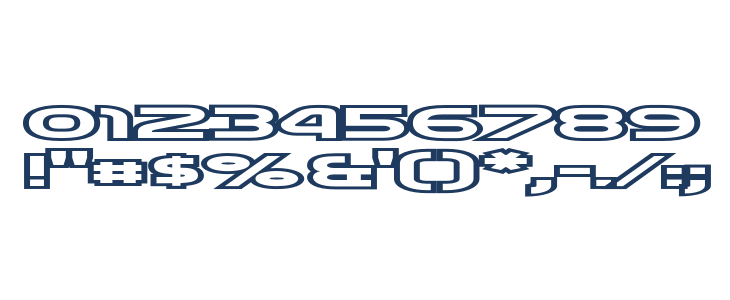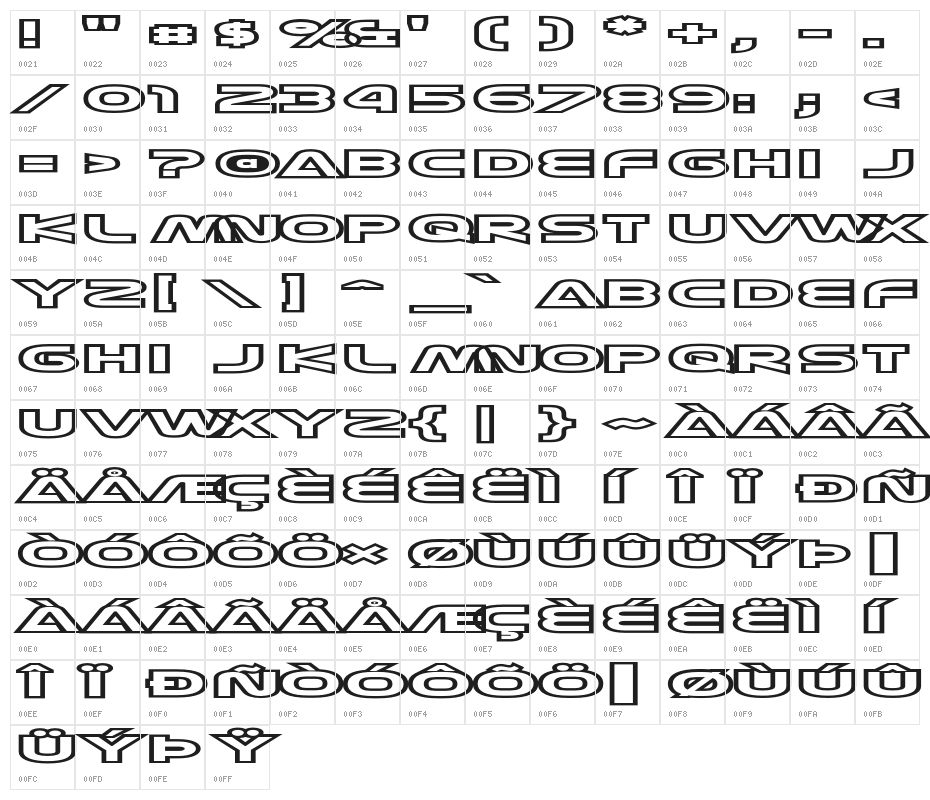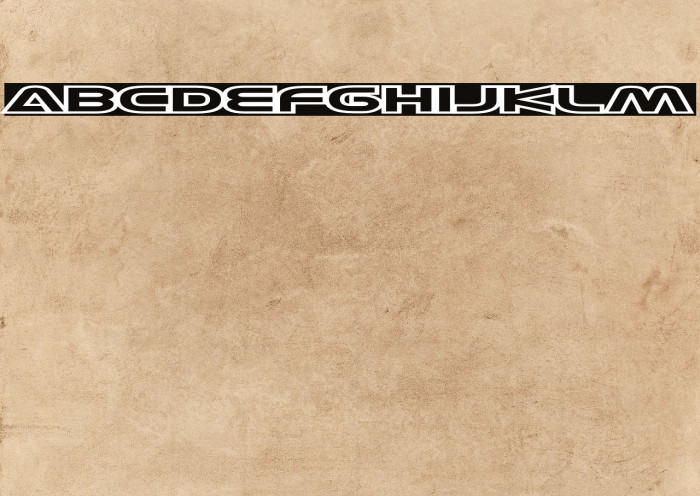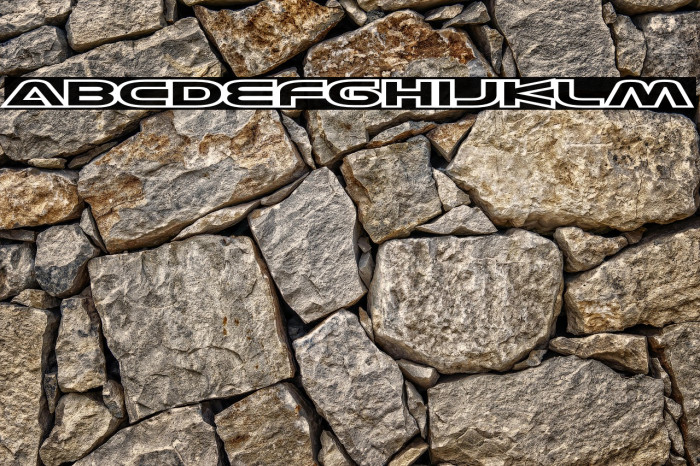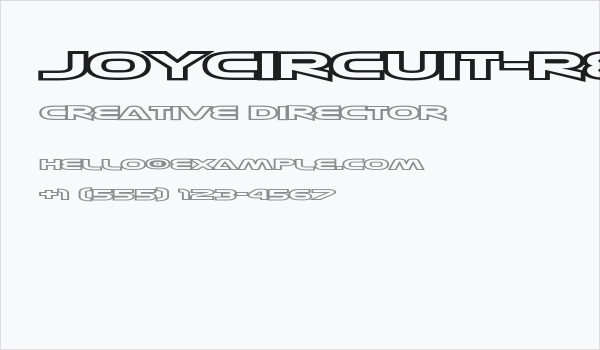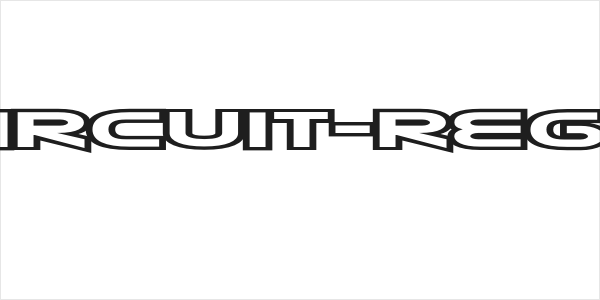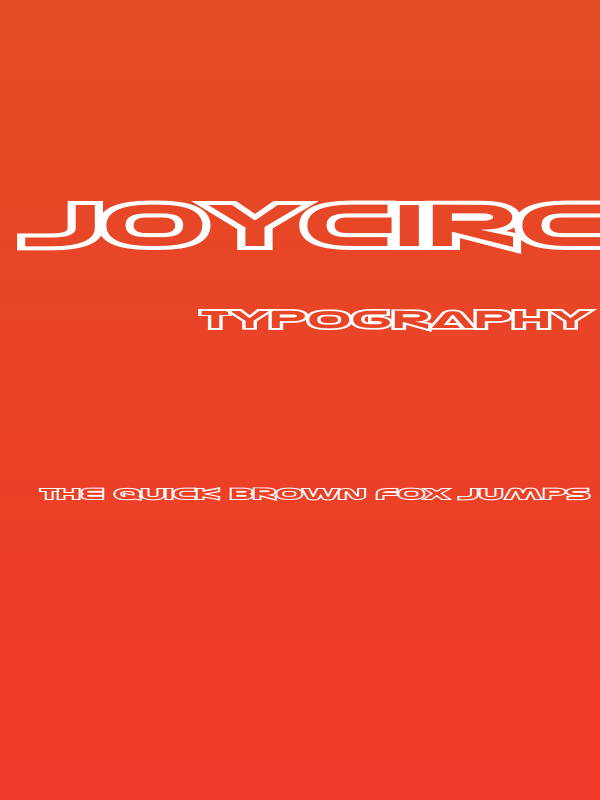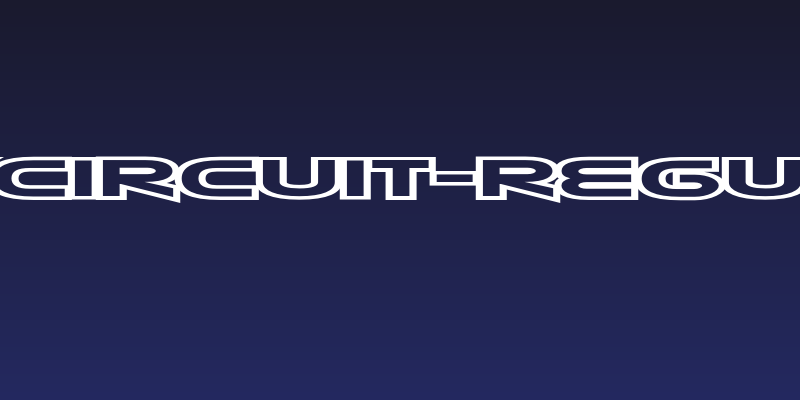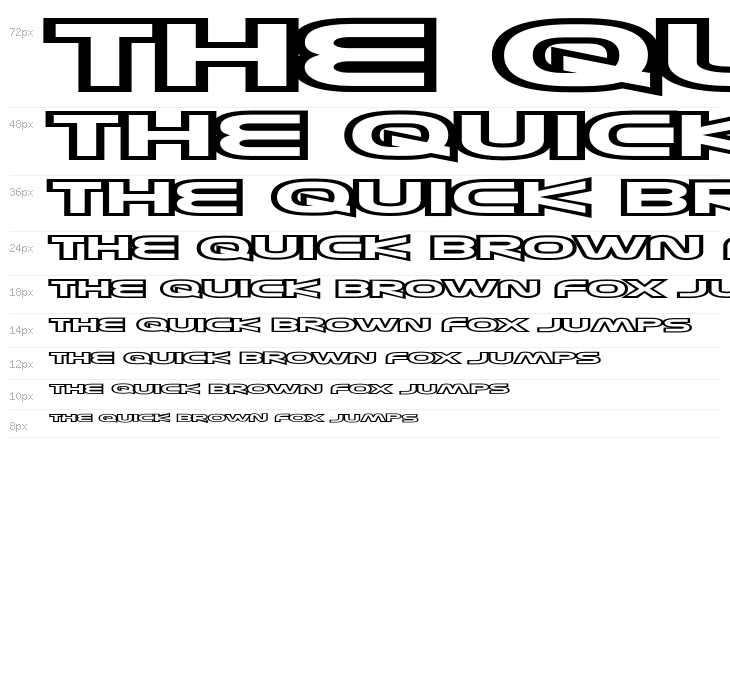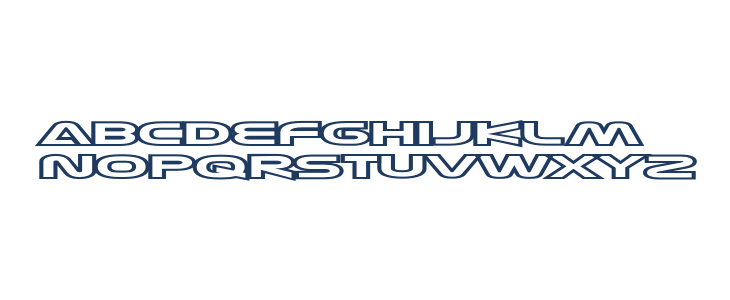
JoyCircuit-Regular Font
JoyCircuit-Regular Description
This font features a futuristic and geometric design, characterized by bold, angular lines and a strong presence. The uppercase and lowercase letters share a consistent style, with sharp edges and a sense of movement. The numbers and special characters maintain the same aesthetic, ensuring uniformity across all glyphs. The font's structure is clean and modern, making it suitable for projects that require a contemporary and tech-inspired look. Its distinct style is eye-catching, making it ideal for headlines or branding that aims to stand out.
| Proposed Projects | Ideal for technology branding, sci-fi themed designs, video game titles, and modern advertising. |